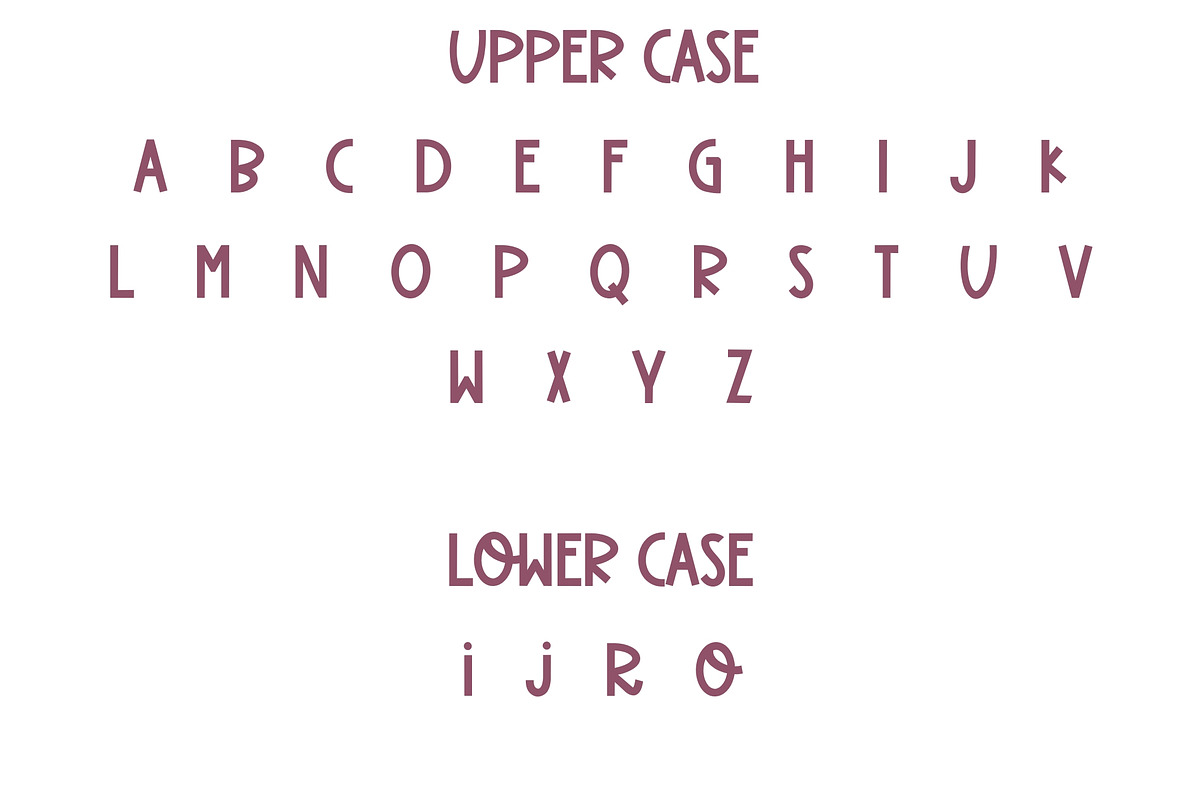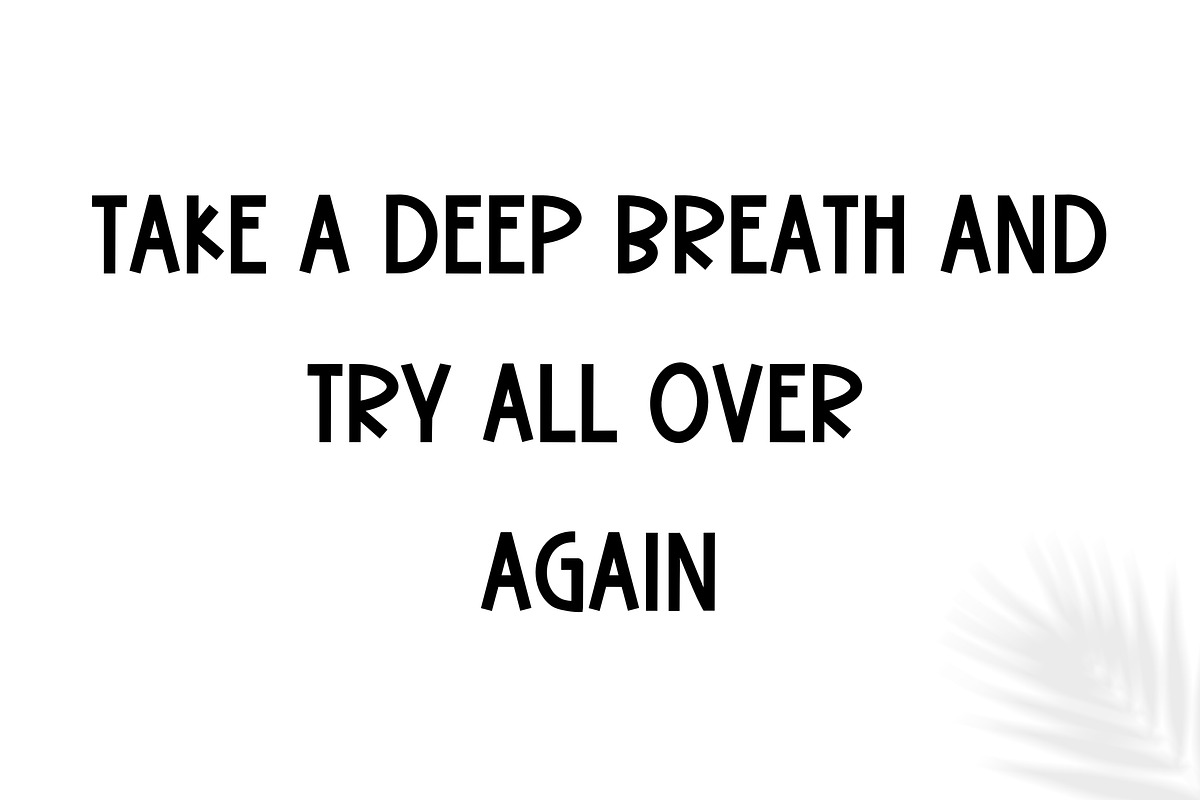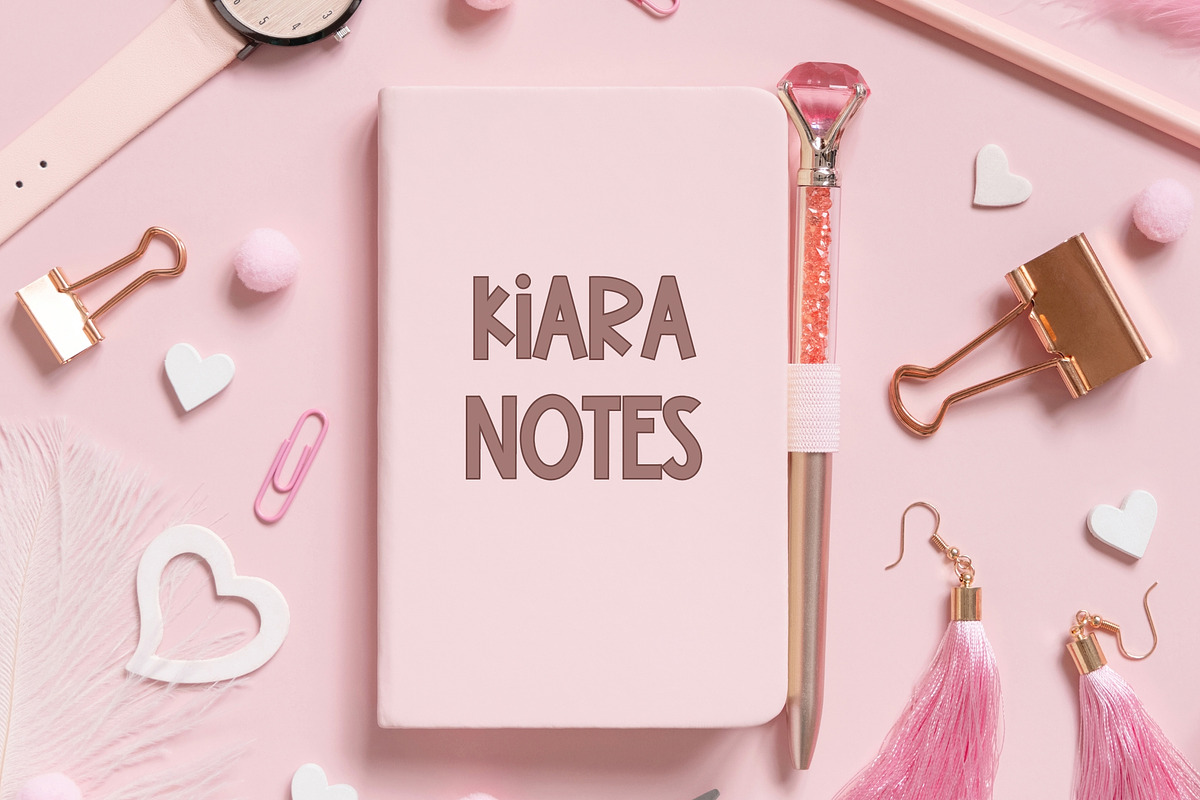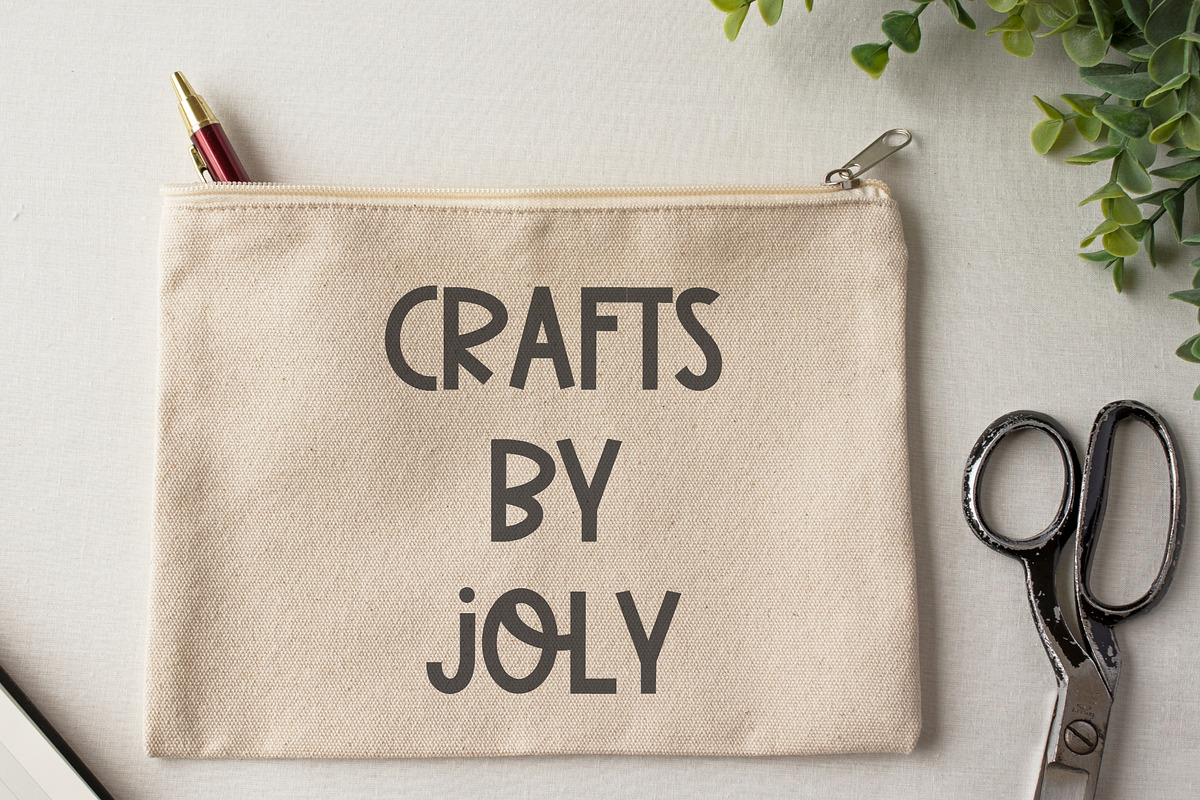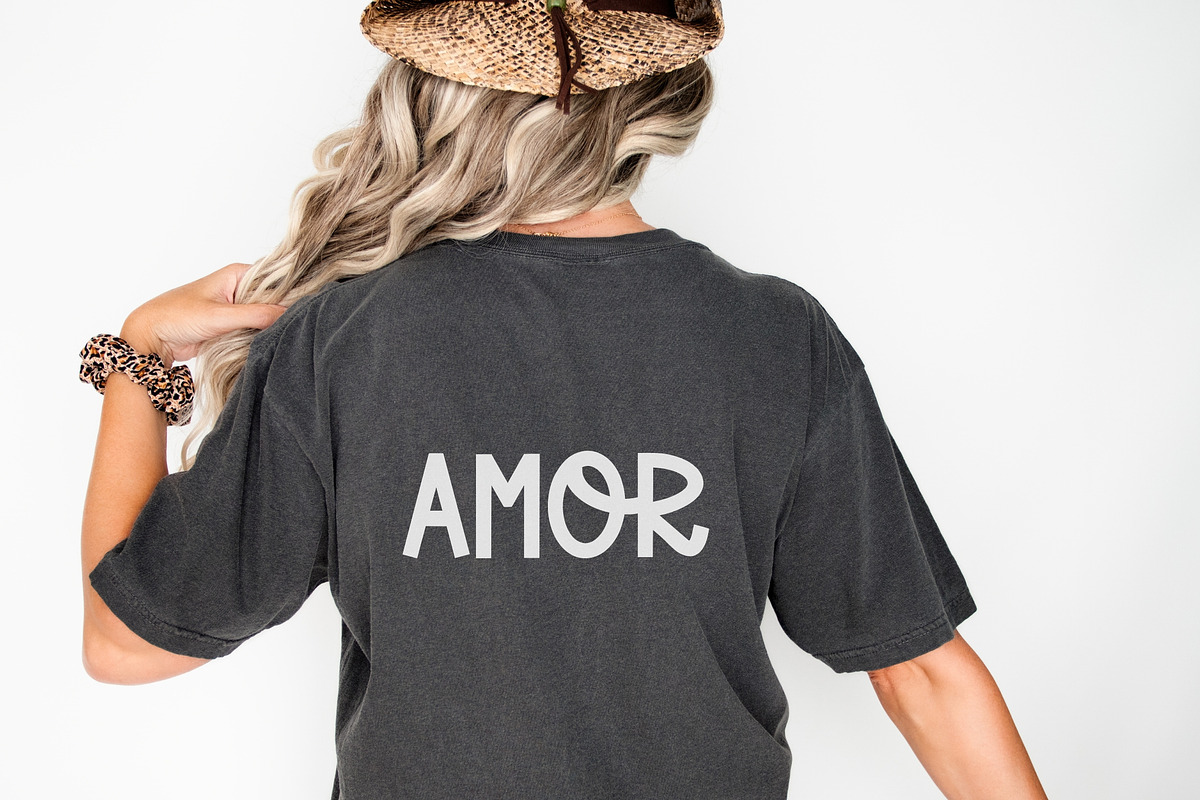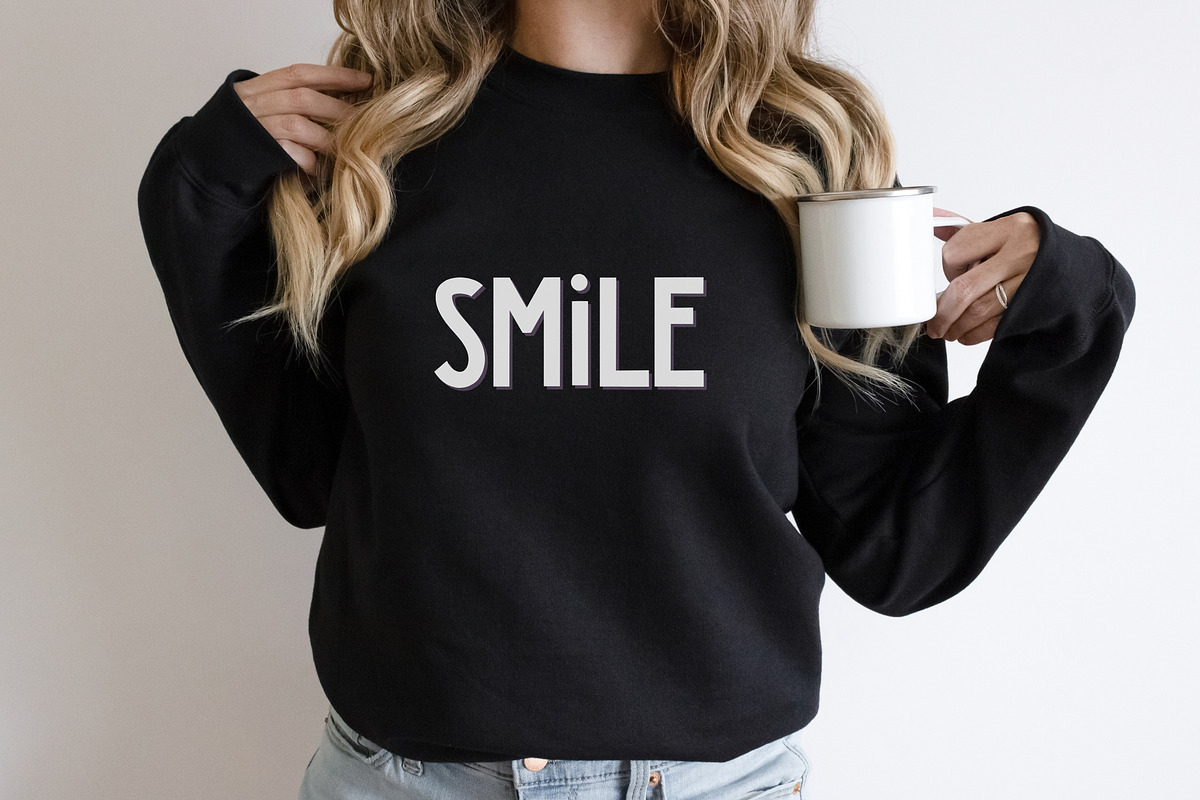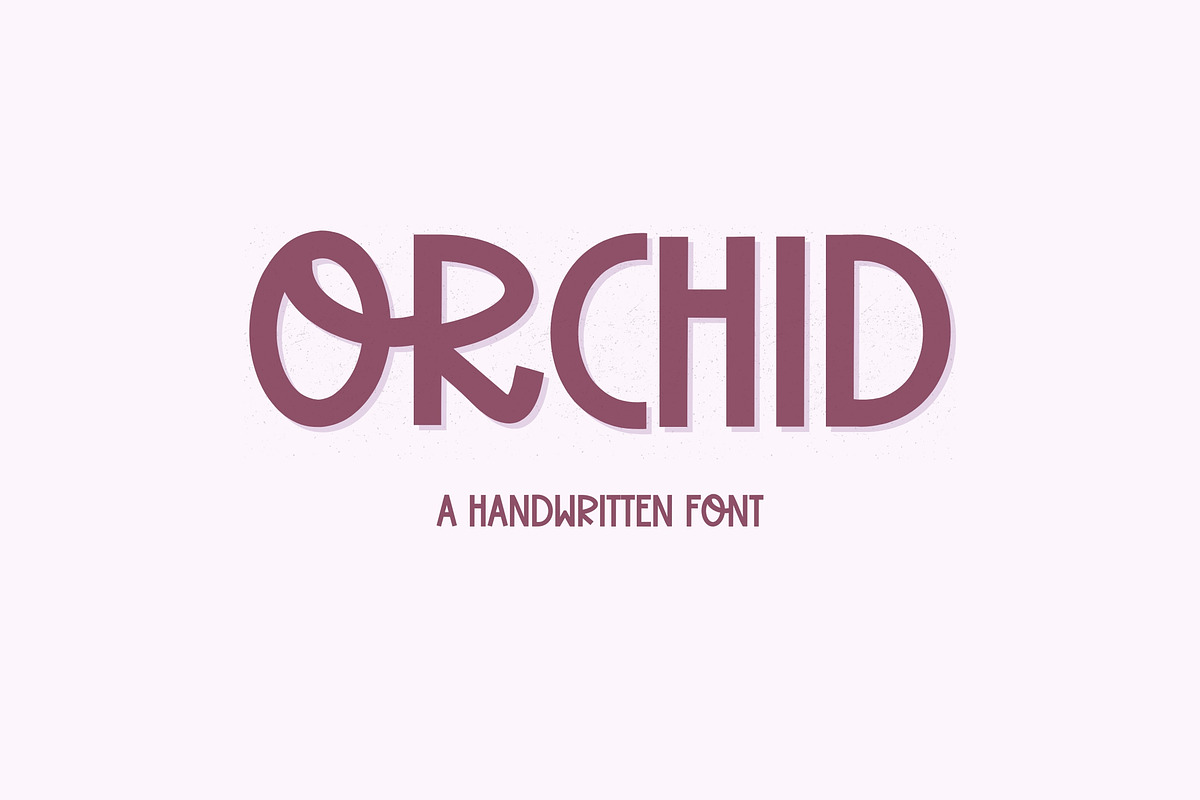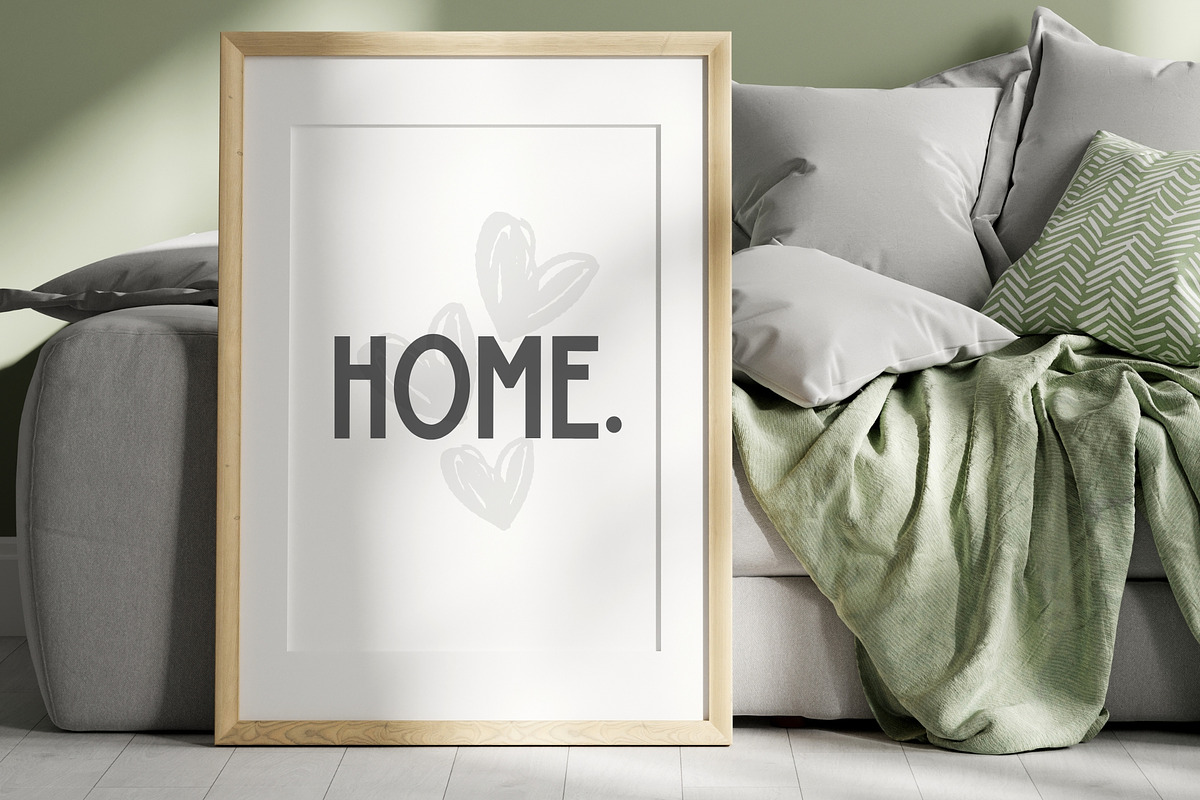
Orchid - Bold handwritten font
Orchid is a quirky handwritten font.
Bold & Fun.
This font is perfect for cricut crafts, logos, branding, svg files, greeting cards, procreate, shirts, posters, social media, planner prints and more!
Features: All Uppercase Lowercase - i,j,o,r. Numbers & punctuation.
NOTE:
Lowercase letter “o” will connect with all glyphs except (A,J,S,T,V,X,Y,Z).